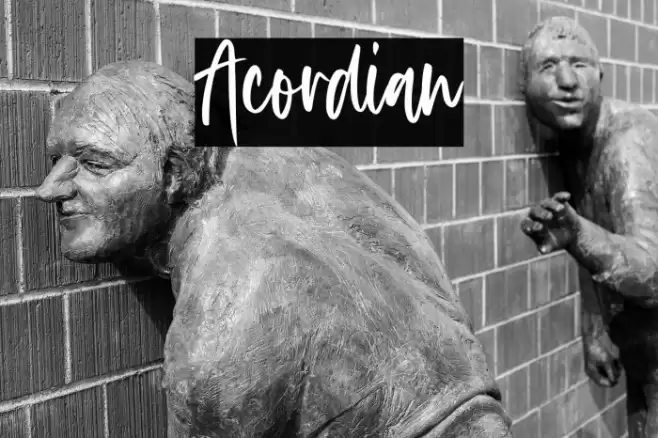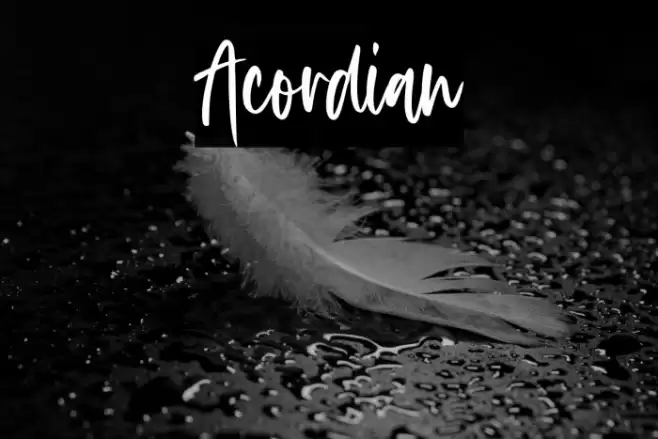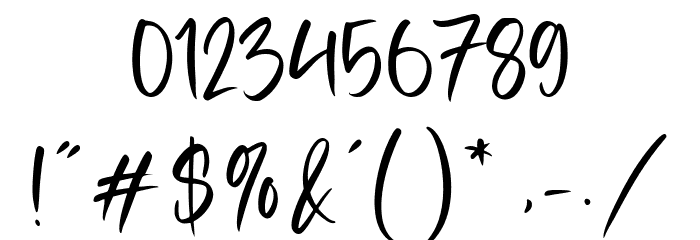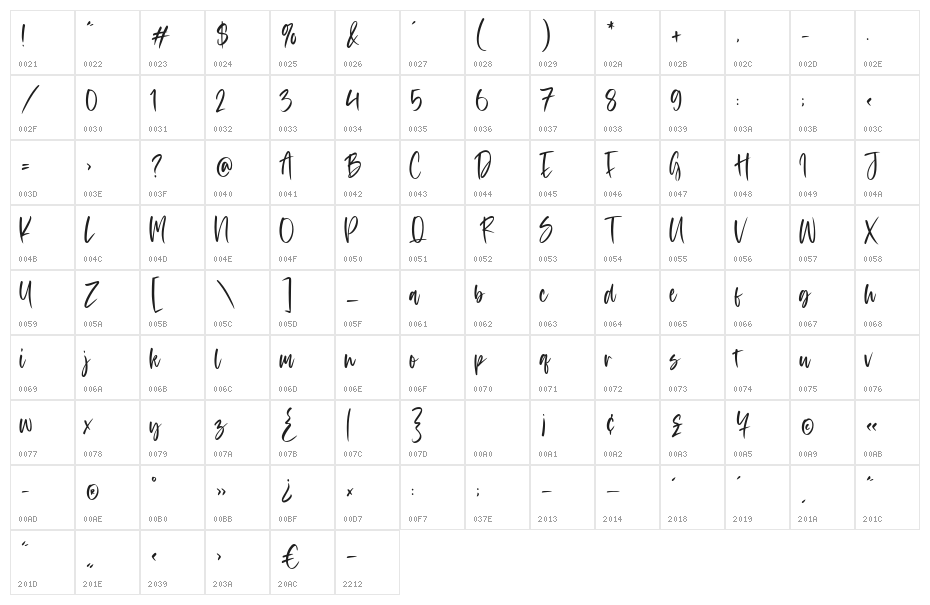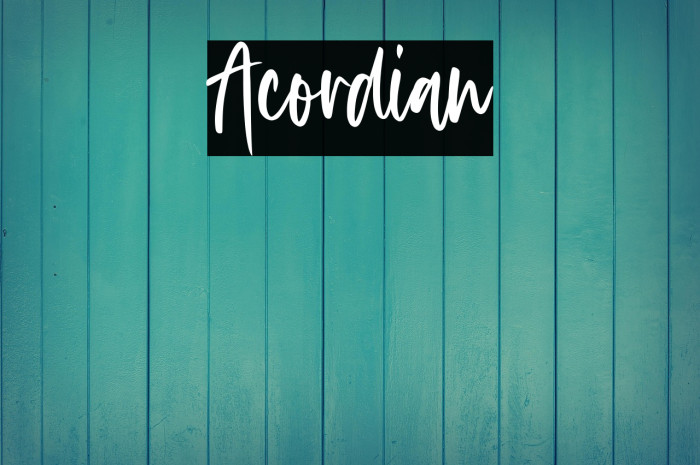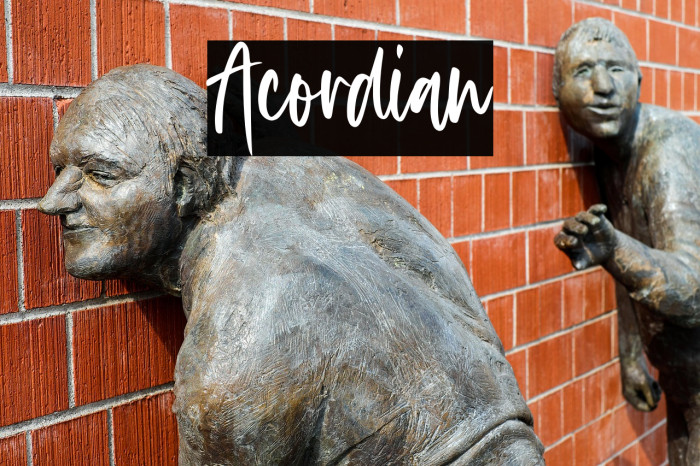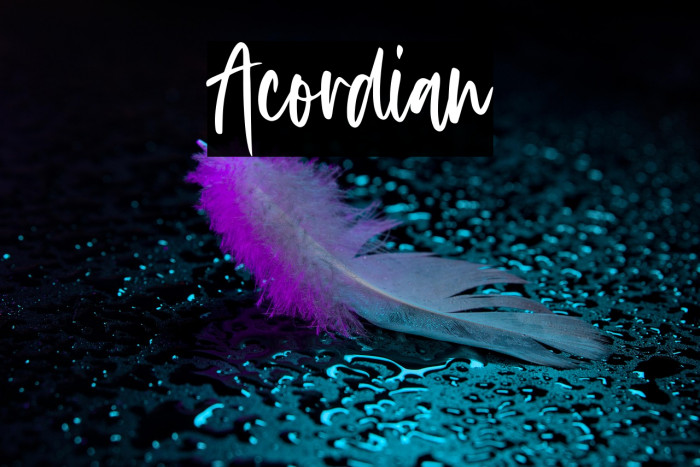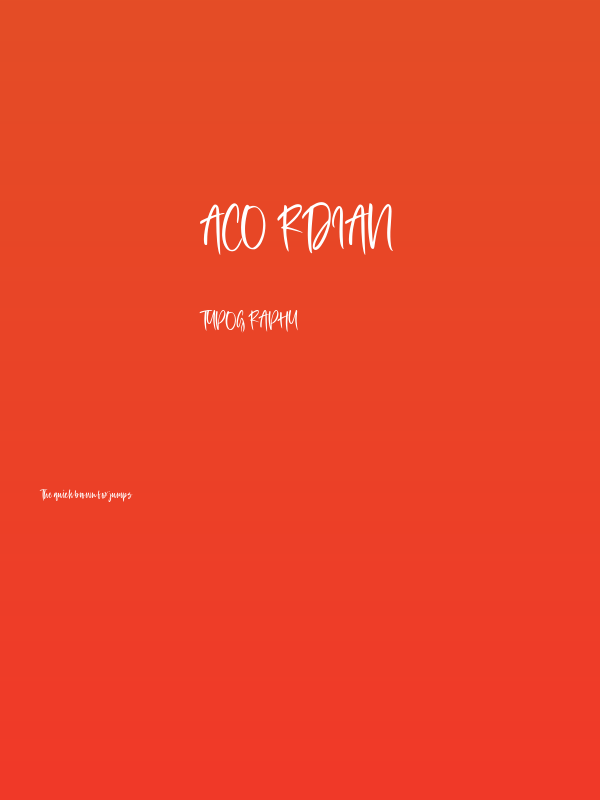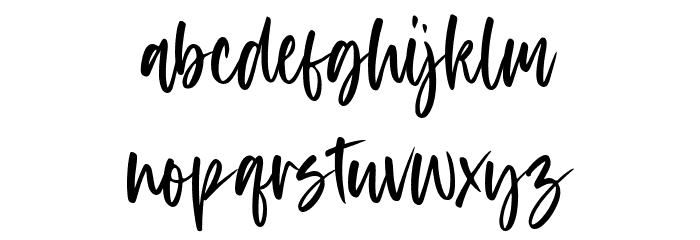
Acordian Font
Acordian Description
This font exhibits a lively and dynamic handwritten style, characterized by its fluid and cursive letterforms. The uppercase letters are bold and slightly slanted, giving a sense of movement and energy. The lowercase letters maintain a consistent flow, with some characters featuring loops and swashes that enhance the handwritten aesthetic. The numerals are clear and maintain the same energetic style, making them easily readable. Special characters are integrated seamlessly, adding to the font's versatility. Overall, this font exudes a playful yet elegant vibe, suitable for creative and expressive projects.
A dynamic and energetic handwritten font with fluid cursive letterforms from Uncategorized fonts.
- Proposed Projects: Ideal for branding, invitations, greeting cards, and social media graphics.
- Use Case: Logos, Headlines, Invitations